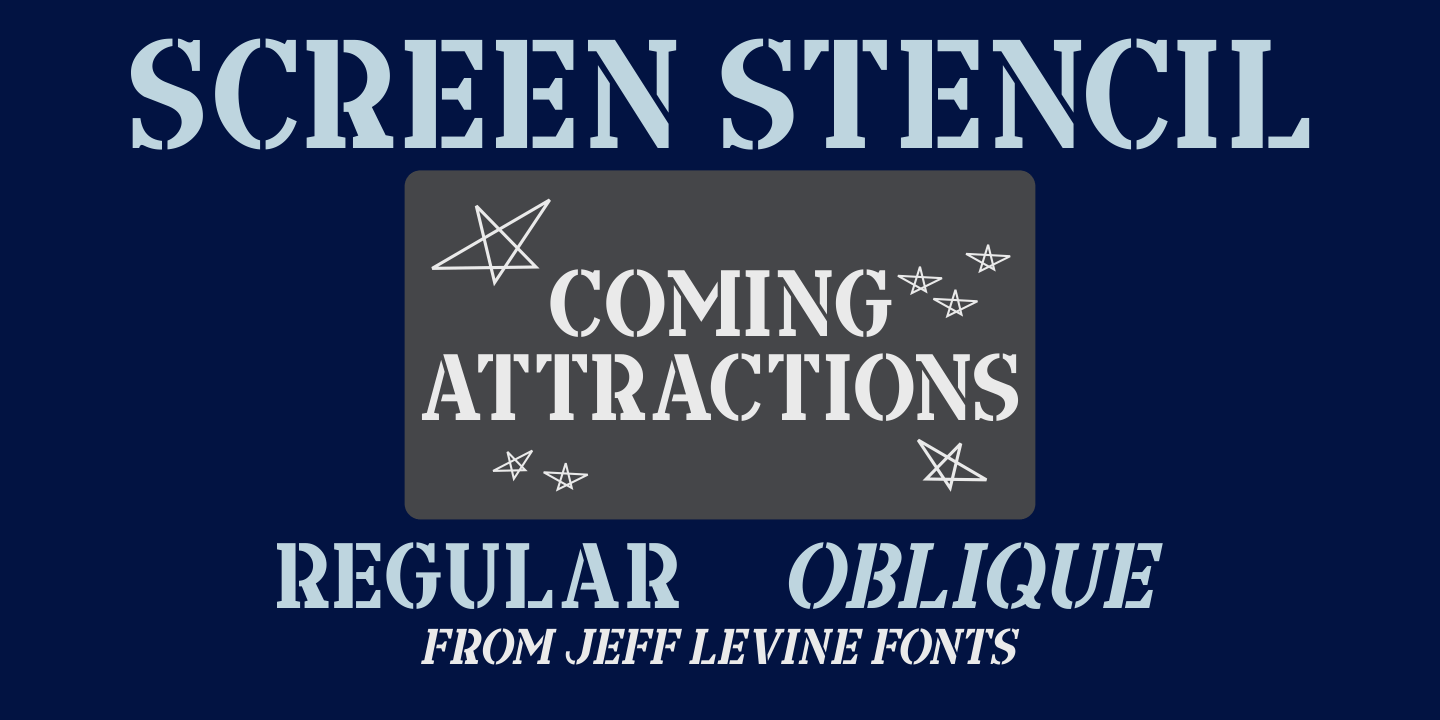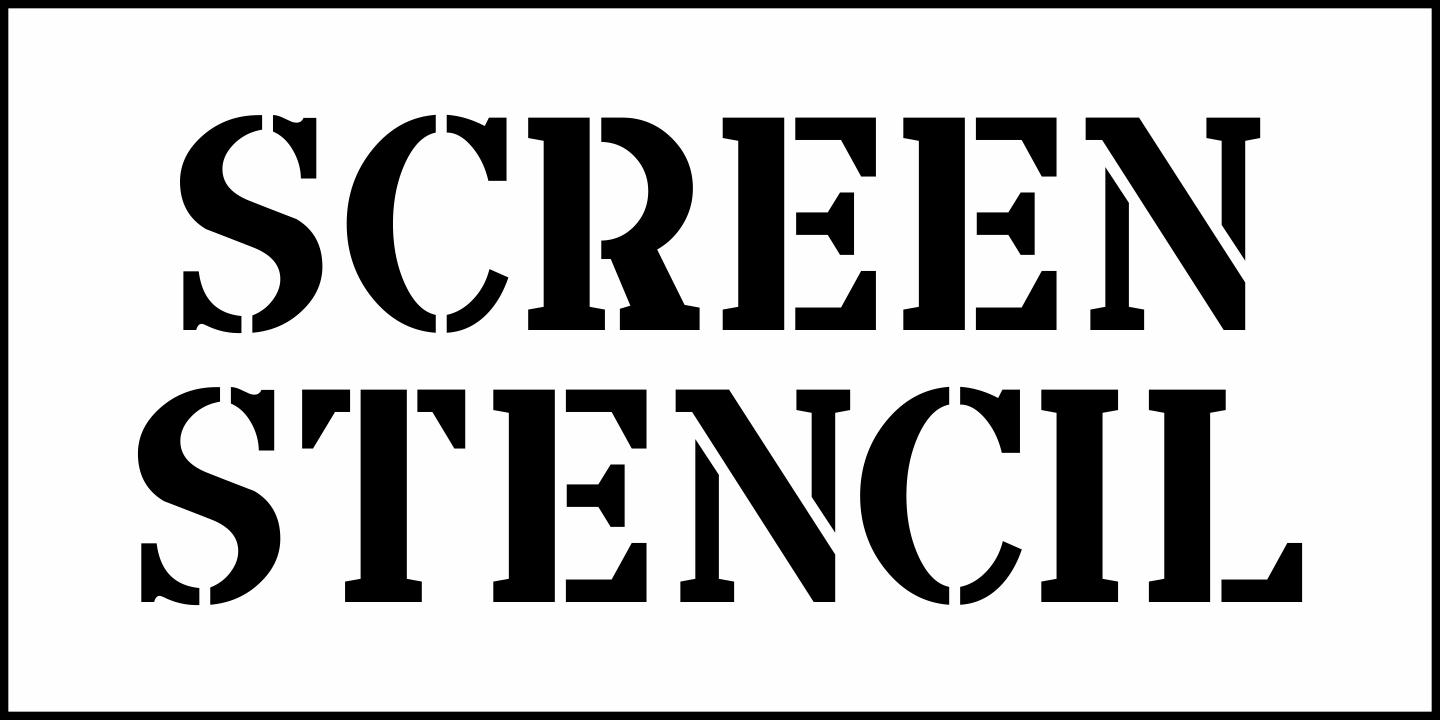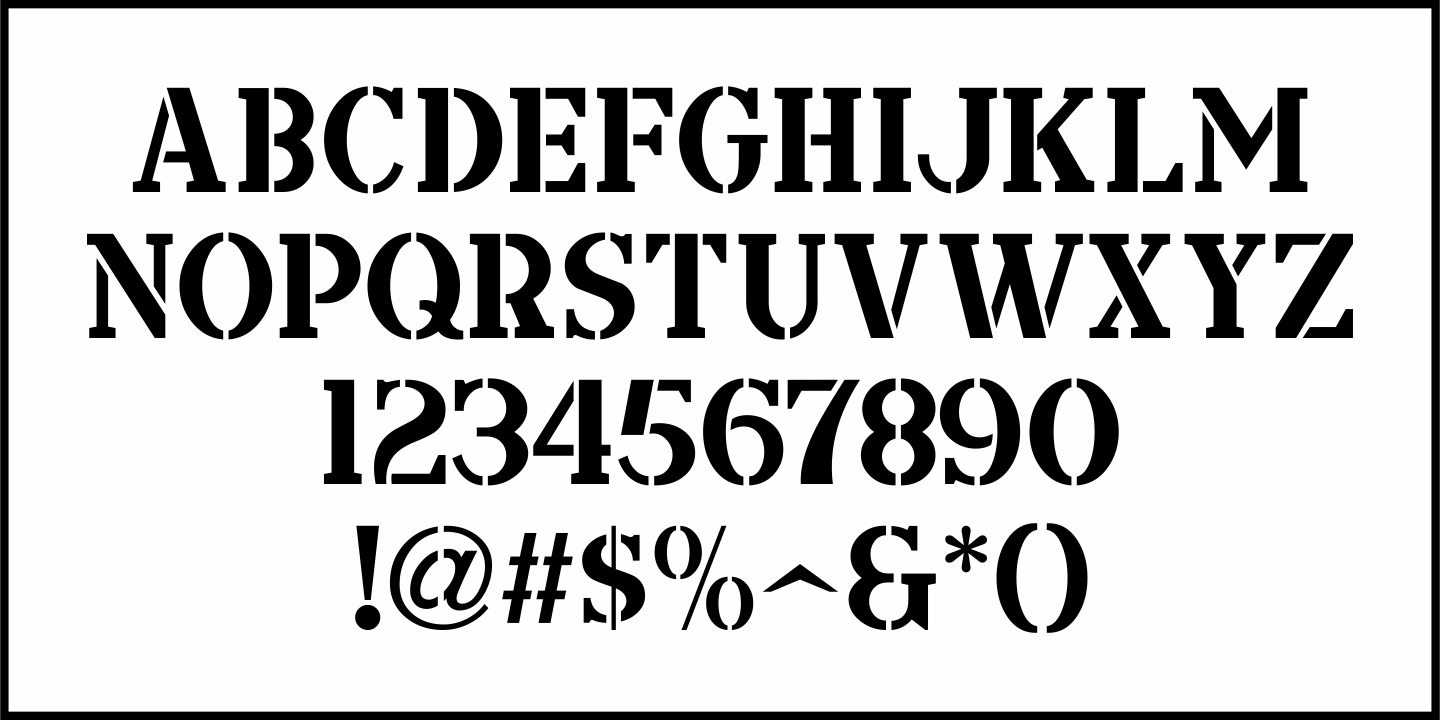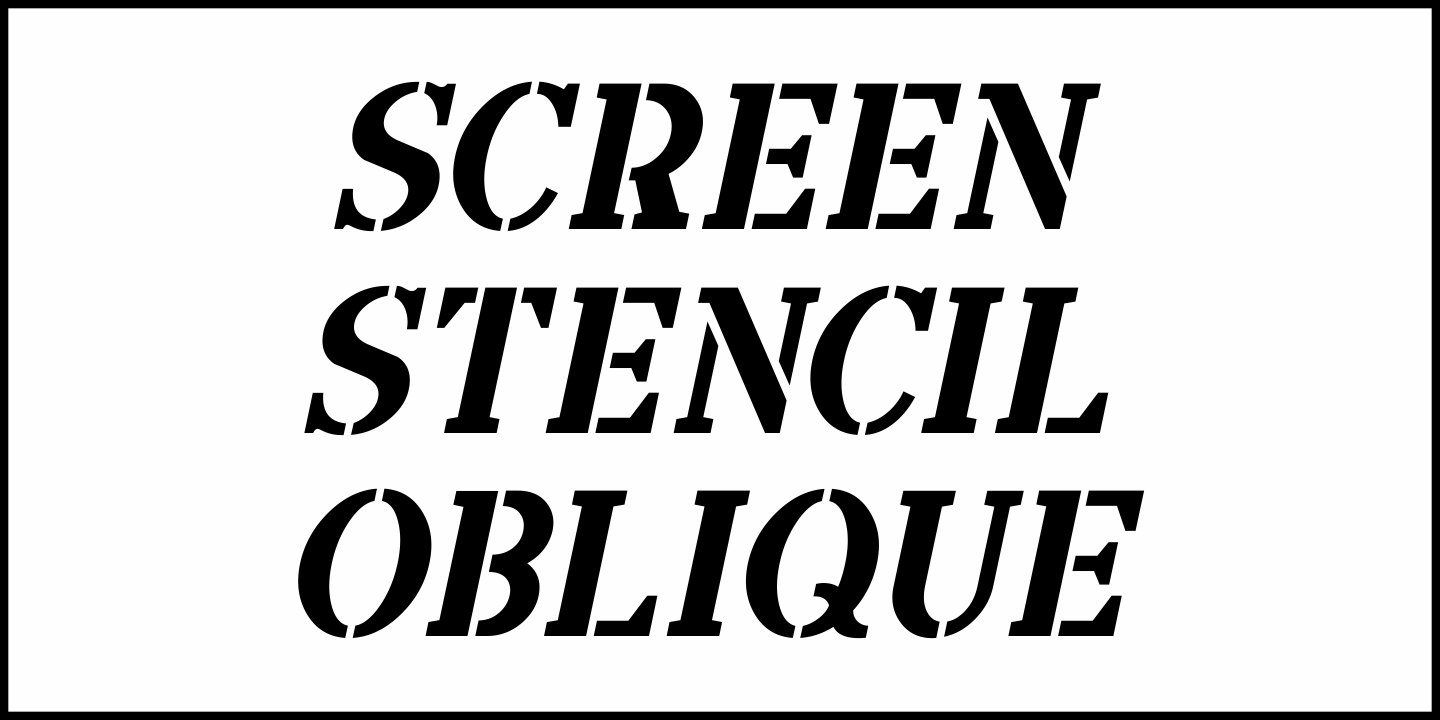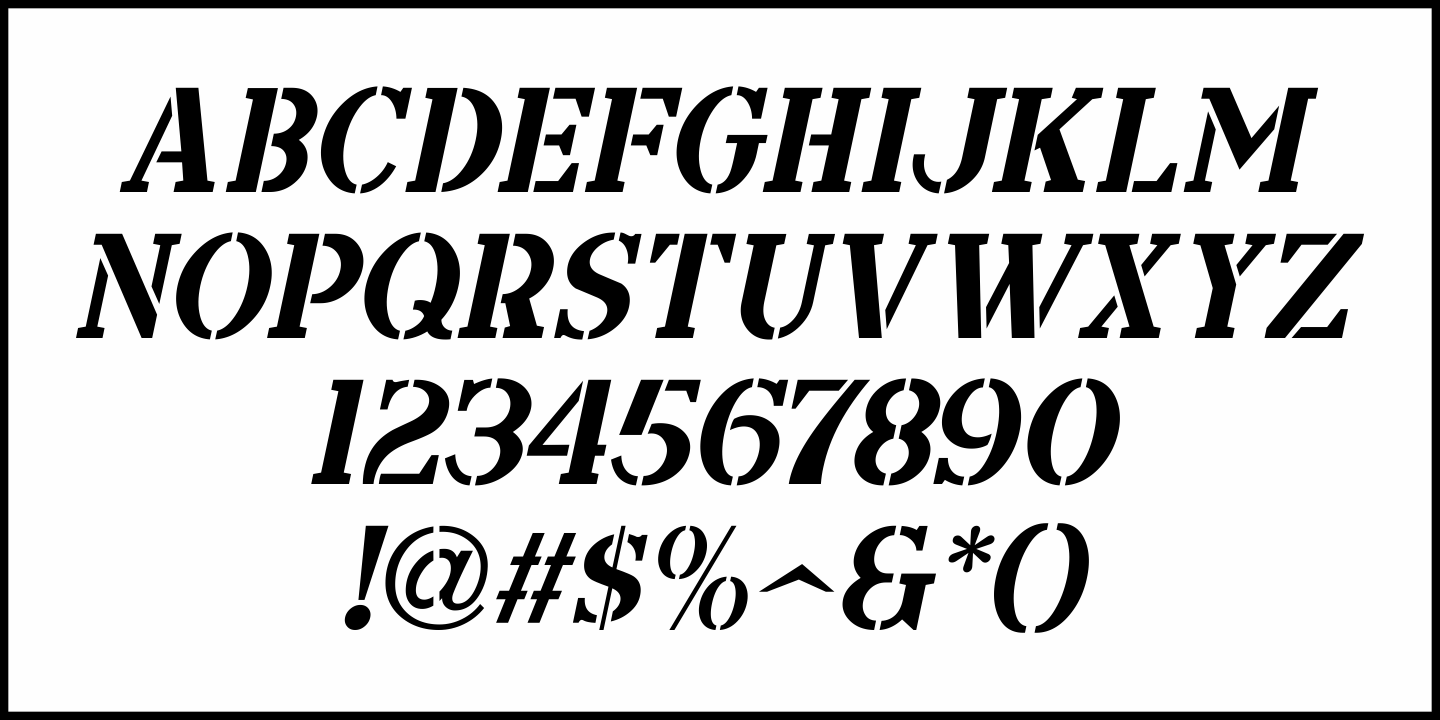
Screen Stencil
National Screen Service was a company that started out providing film trailers, but is best known for supplying posters and lobby cards to theaters.
One of their ads (in the October 2, 1948 issue of Motion Picture Herald) was hand lettered in a bold stencil slab serif style.
This is now available as Screen Stencil JNL, in both regular and oblique versions.